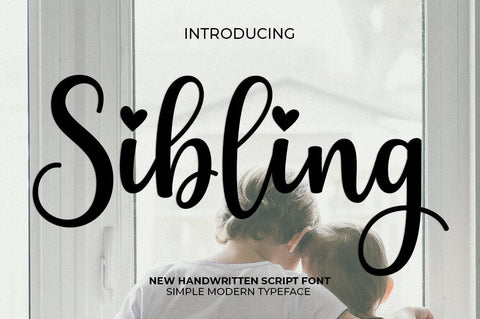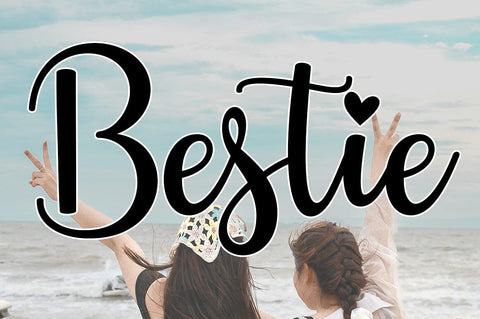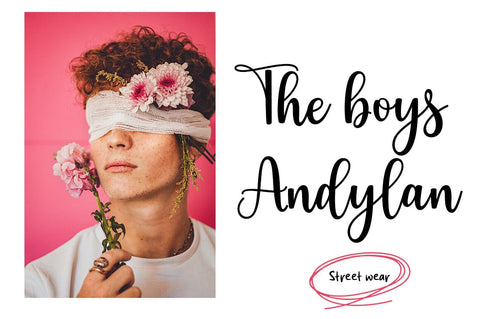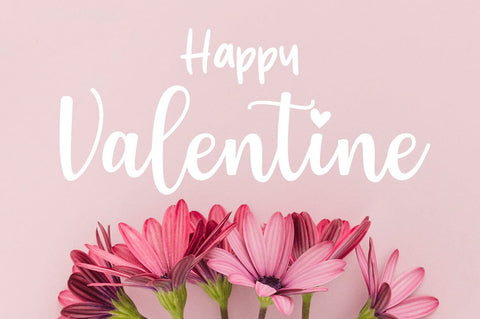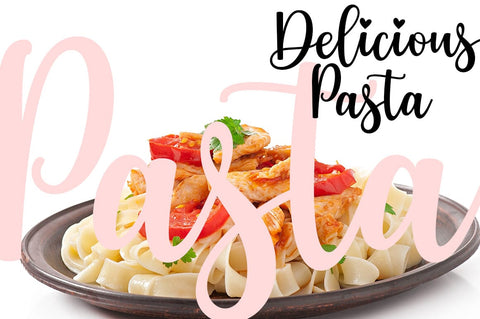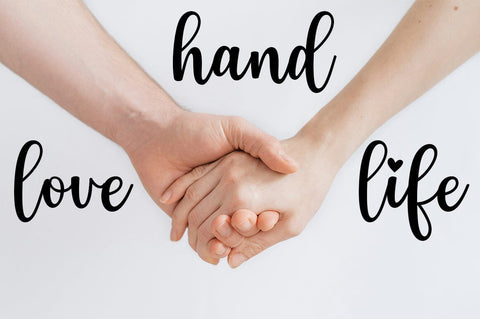
Sibling
Introducing Sibling – a font with contemporary calligraphy flair that features Regular style. Bursting with an effortless charm reflected in its artistic swash, Sibling adds beauty to your designs, casually, yet significantly. With versatile uses, it enhances every creative endeavor from crafting unforgettable logos, adding character to product packaging, and exuding elegance on wedding invitations. The font shines in branding, headlines, and signage, while also giving a personalized touch to labels and signatures. Sibling’s timeless appeal is also perfect for book covers, dramatic posters, poignant quotes, fostering familial connections, and more. Experience the fluidity and beauty that emanates from Sibling, and let it help narrate your most meaningful stories.